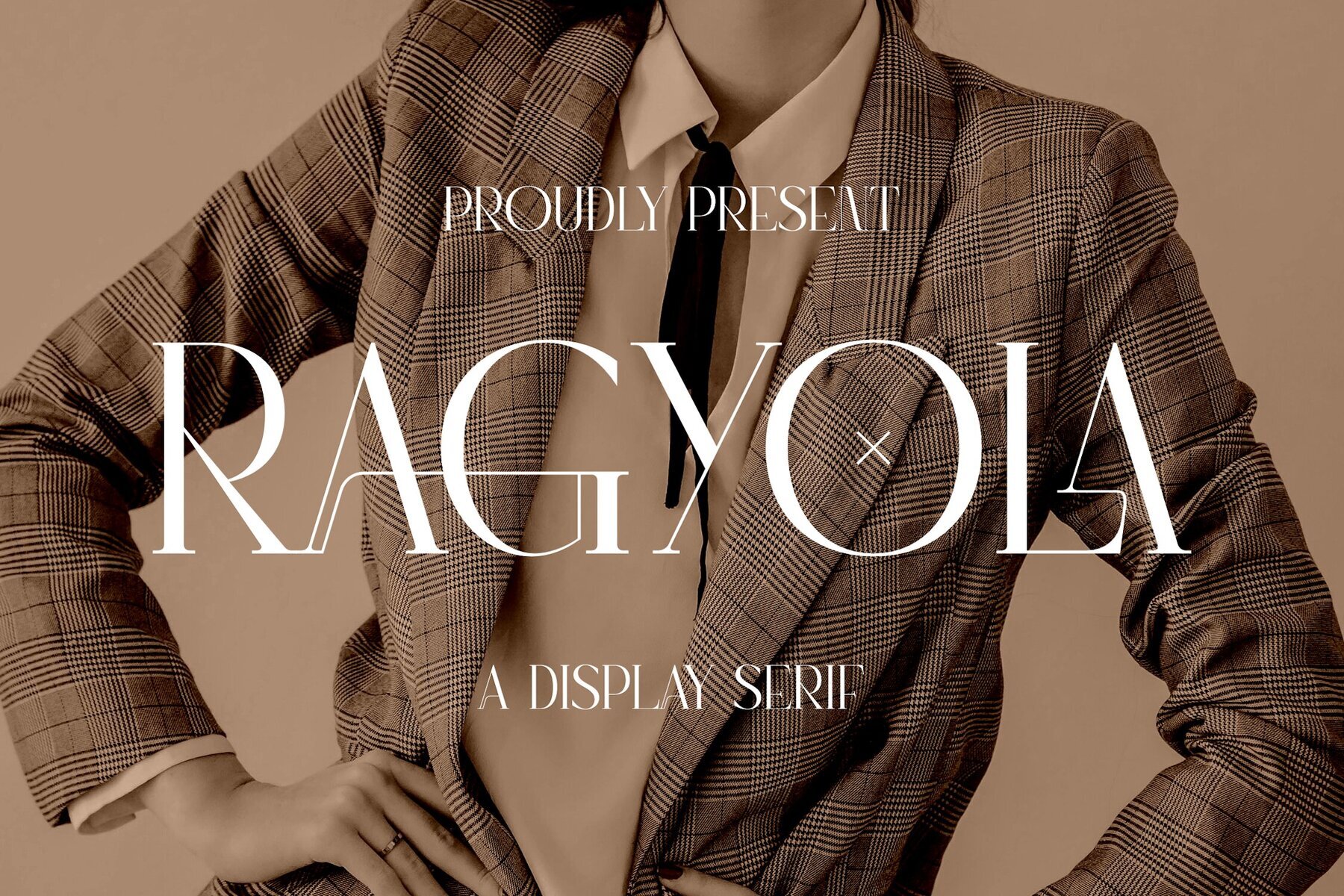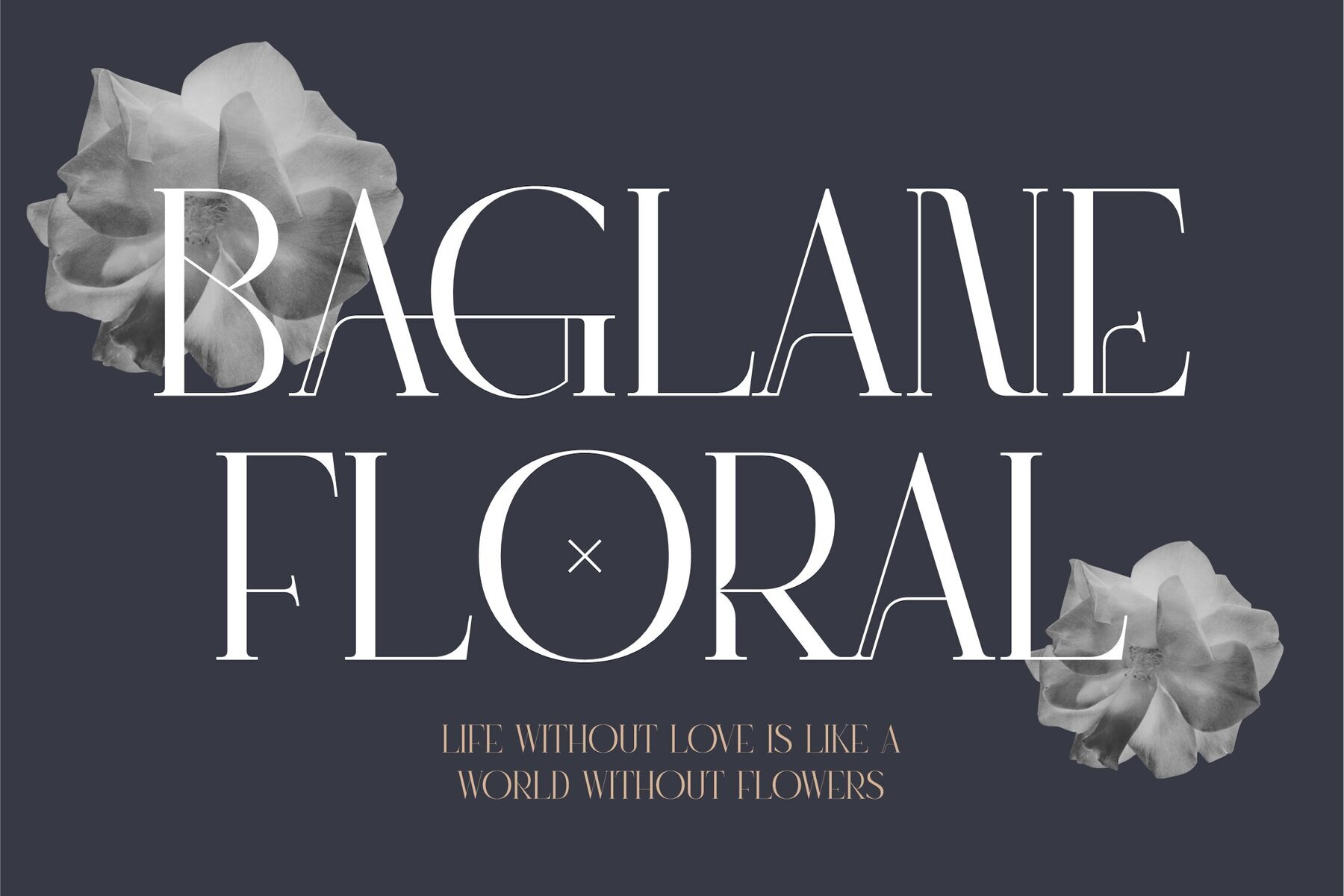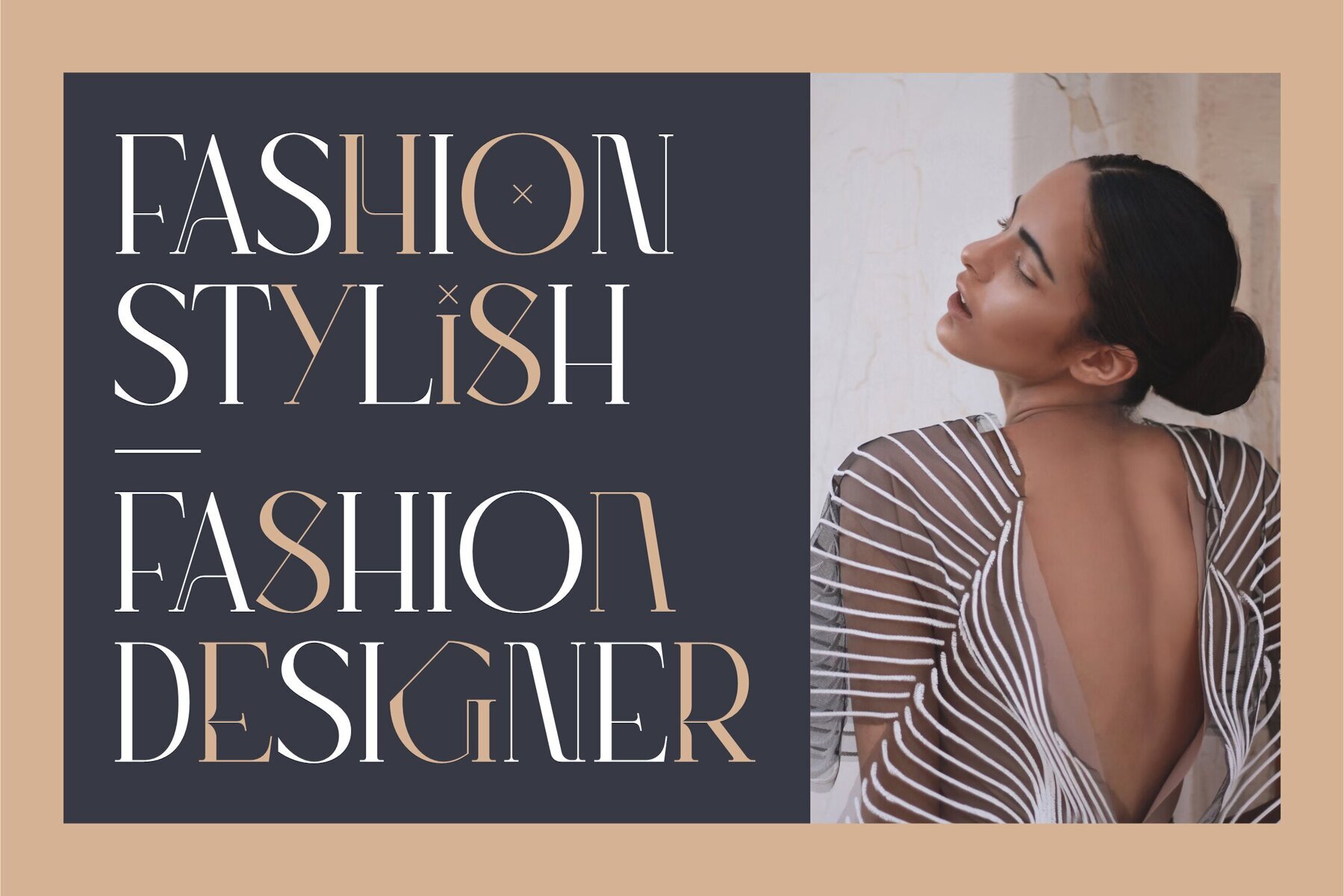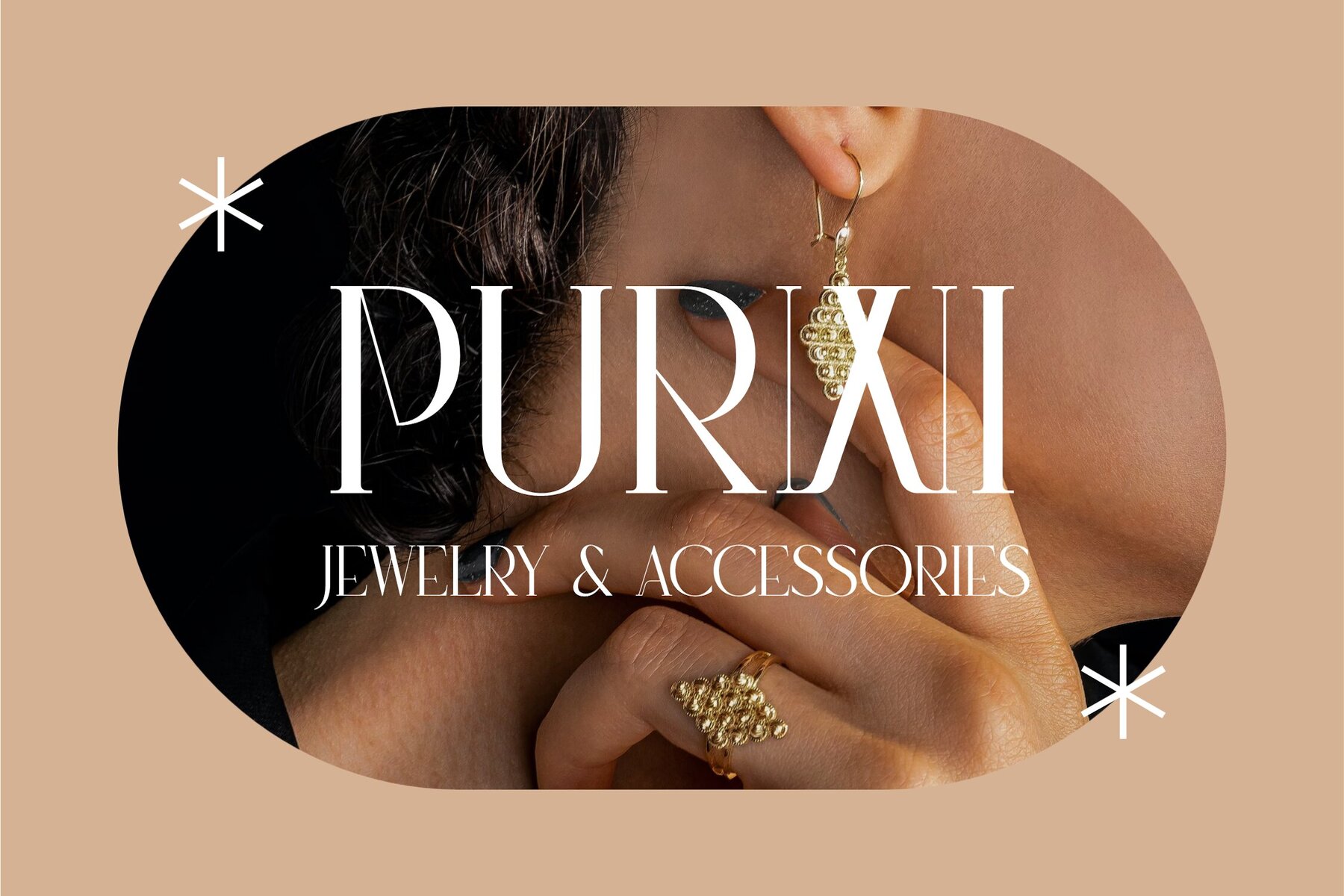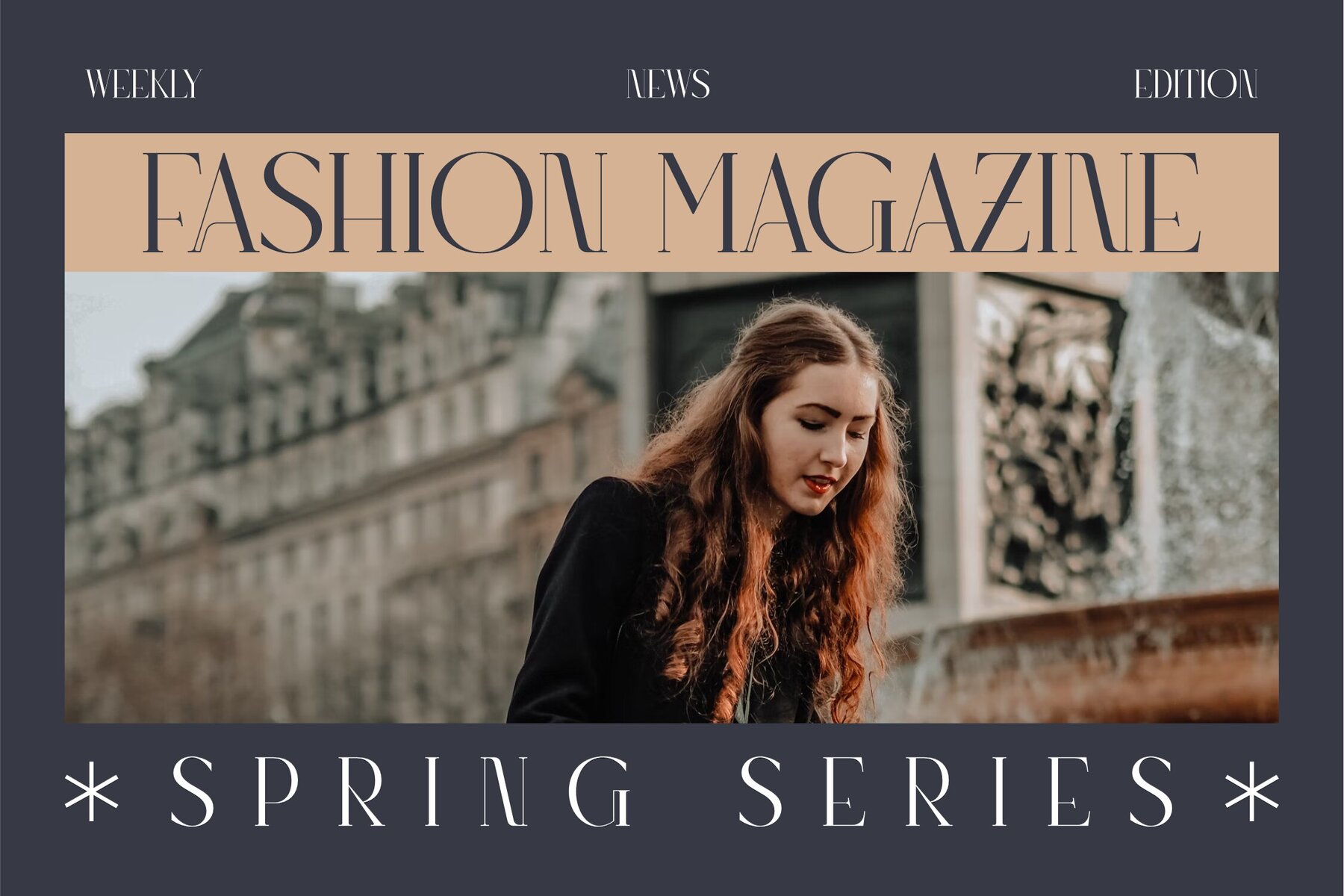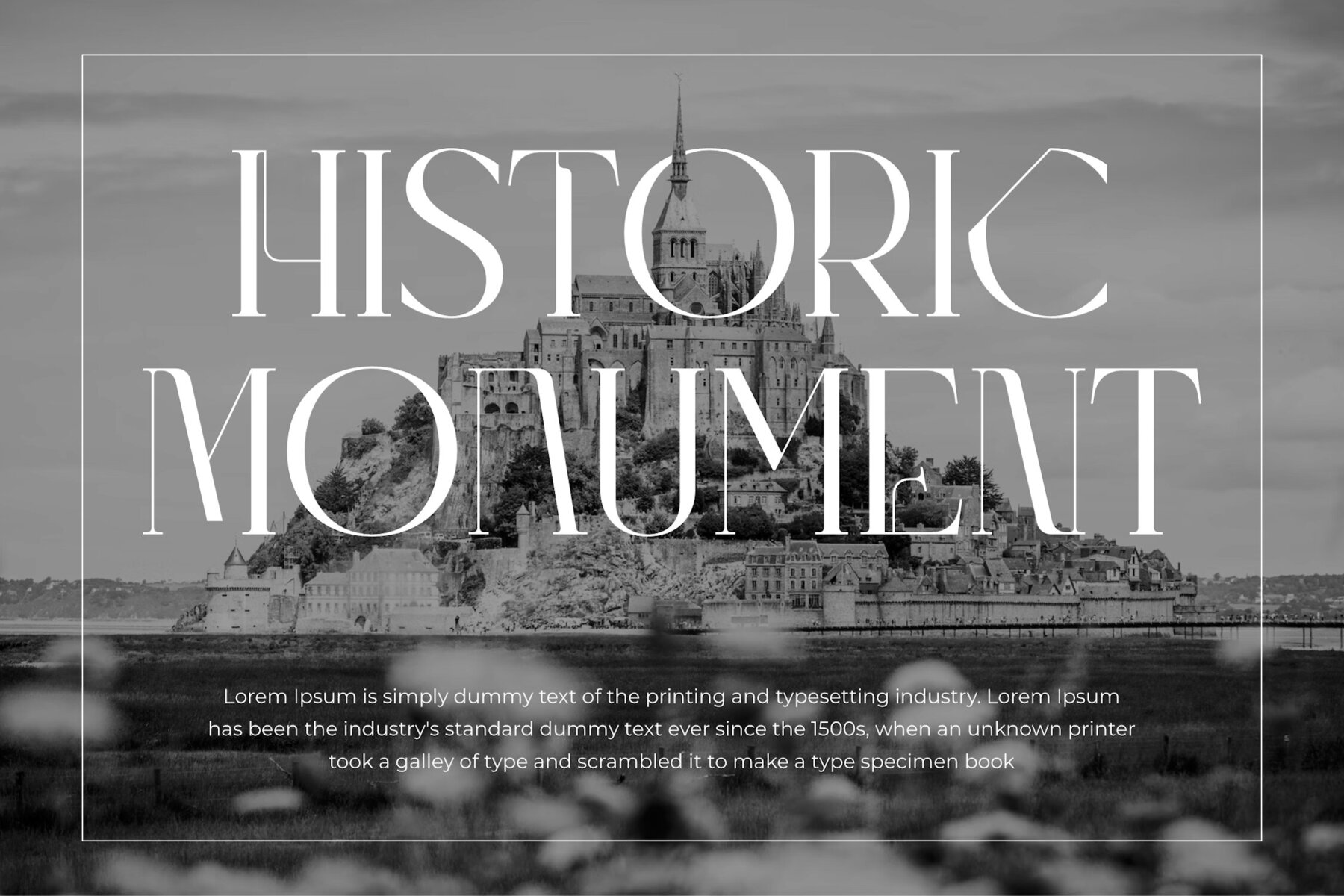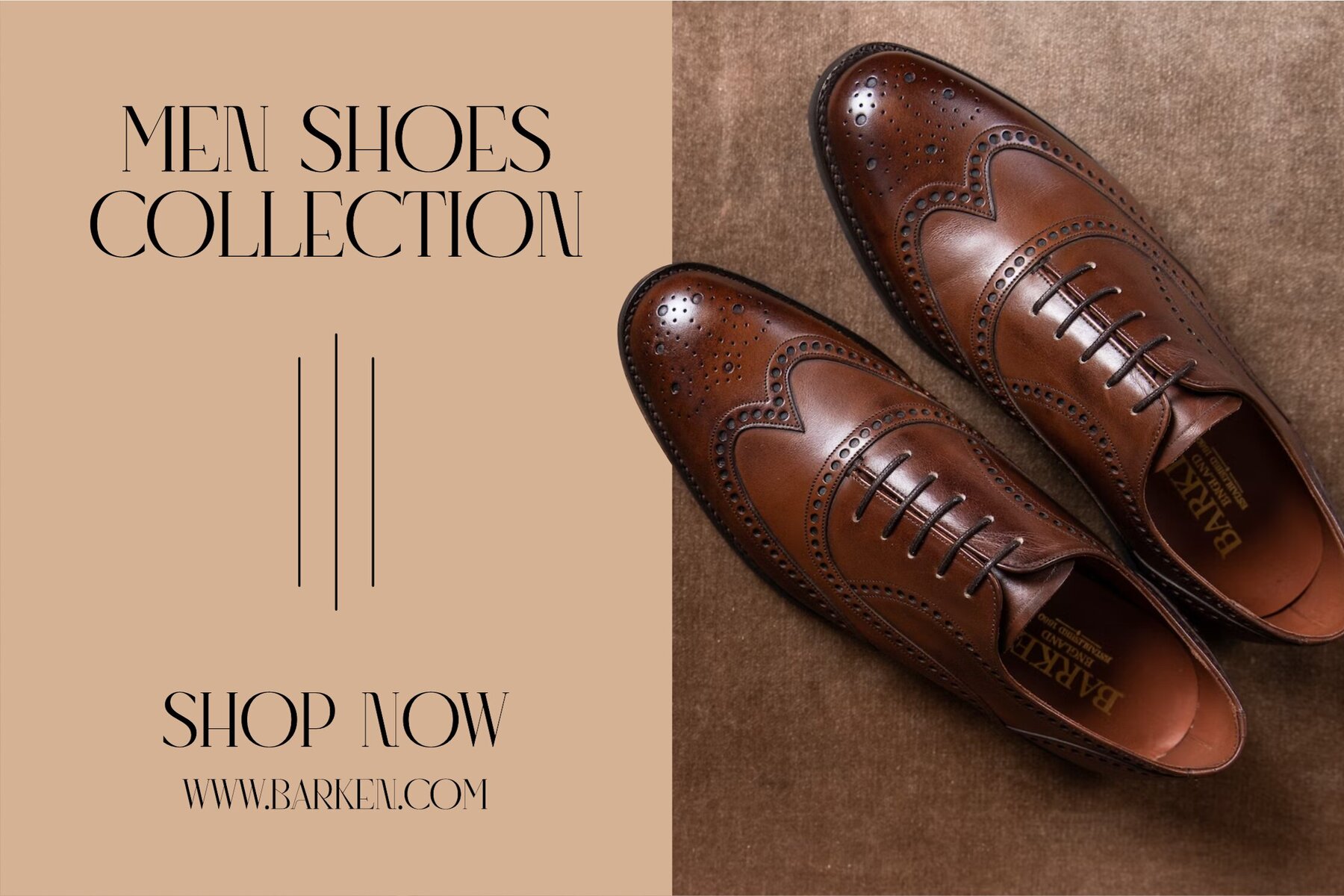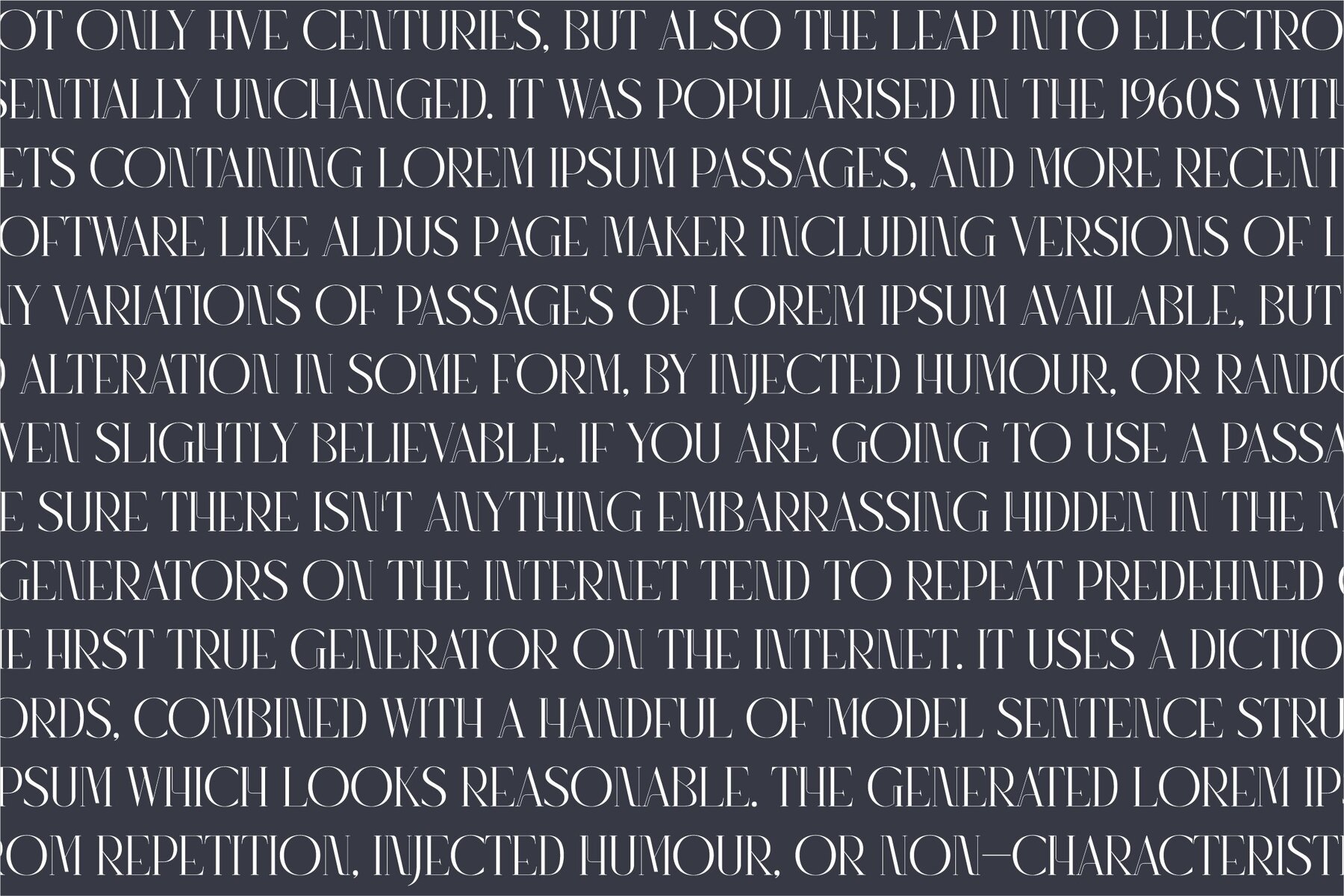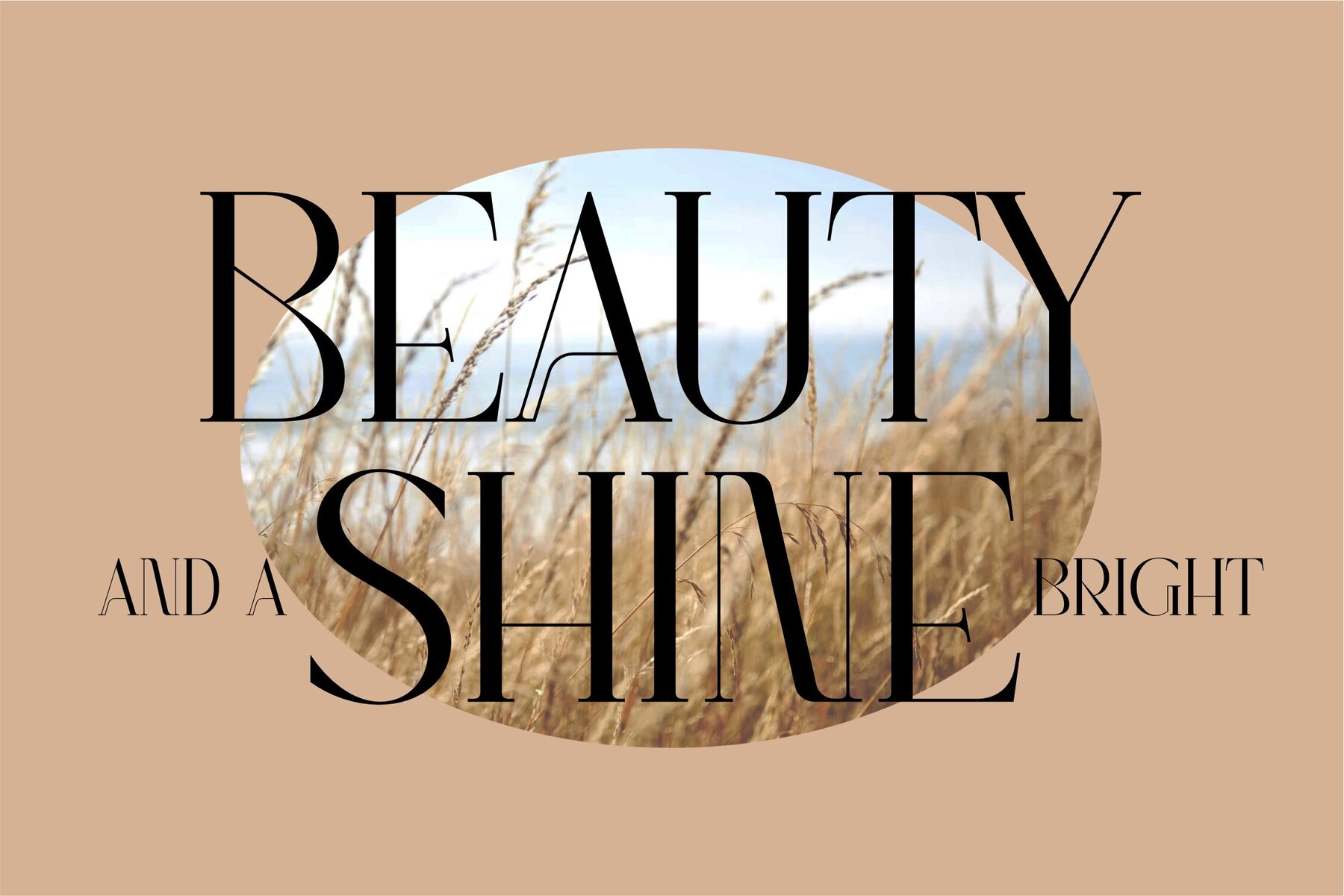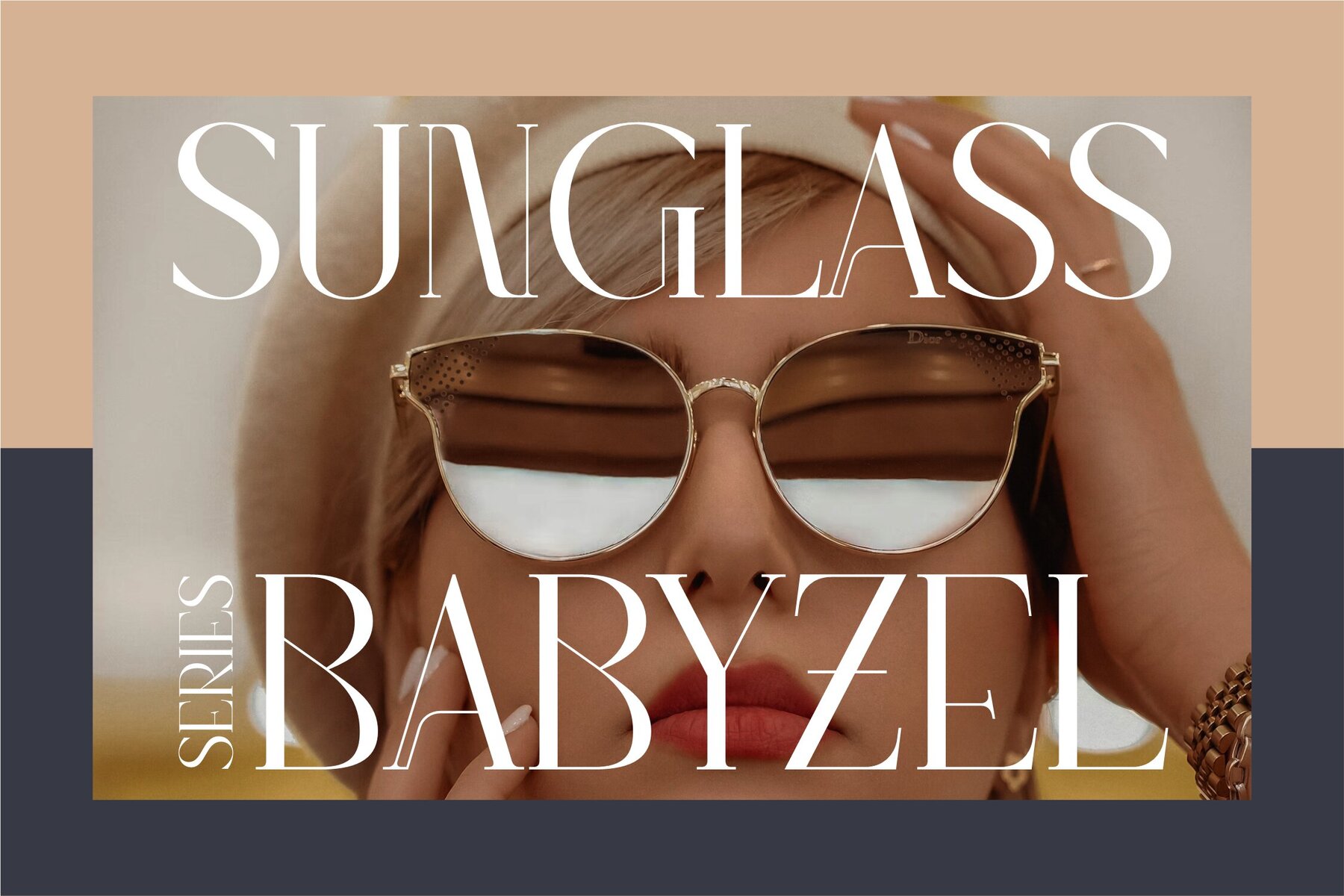
Ragyola Font
Ragyola Regular
Ragyola Italic
The Ragyola Typeface stands as a testament to the seamless blend of modern aesthetics and classical design. Characterized by its unique style and sophisticated appeal, this serif typeface becomes the perfect choice for projects demanding elegance and luxury. Ideal for creating distinguished logos, impactful book or movie titles, and high-fashion branding, Ragyola adds a touch of refinement to any design endeavor.Ragyola Typeface: Modern Elegance with Classic Roots